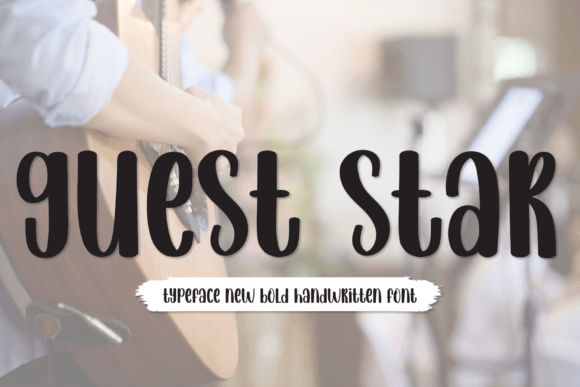
Prepare yourself to be mesmerized by Guest Star Font, an extraordinary script font that exudes coolness and casual charm. Its enchanting handwritten style adds a personal touch to any design project, inviting your audience to embark on a journey of creativity and self-expression.
Crafted with meticulous care by the talented artisans at andikastudio, Guest Star Font is more than just a font; it's an experience. Its flowing strokes and playful curves evoke a sense of whimsy and spontaneity, making it the perfect choice for those seeking to add a touch of fun and flair to their designs.
Whether you're a seasoned designer, a crafty enthusiast, or simply someone who appreciates the beauty of typography, Guest Star Font is sure to captivate your imagination. Dive into a world where your words take on a life of their own, dancing across the page in a captivating symphony of style and elegance.
With its unmatched versatility, Guest Star Font seamlessly adapts to a myriad of design applications. Create eye-catching brochures that leave a lasting impression, design digital masterpieces that captivate your audience, or craft personalized greeting cards that convey your heartfelt sentiments with grace and charm. The possibilities are endless, limited only by the boundaries of your creativity.
Imagine the joy of crafting personalized invitations for your special occasions, adorned with the delightful strokes of Guest Star Font. Let your words dance across the page, inviting your loved ones to share in your moments of celebration with a touch of elegance and charm.
Embark on a creative journey with Guest Star Font, where your designs come alive with a vibrant energy that radiates from every letterform. Experience the thrill of transforming ordinary words into captivating works of art, leaving your audience spellbound by the sheer beauty and sophistication of your creations.
Make Guest Star Font your go-to font for every occasion, from casual crafting projects to professional presentations. Its versatility knows no bounds, allowing you to express your unique style and creativity in countless ways.